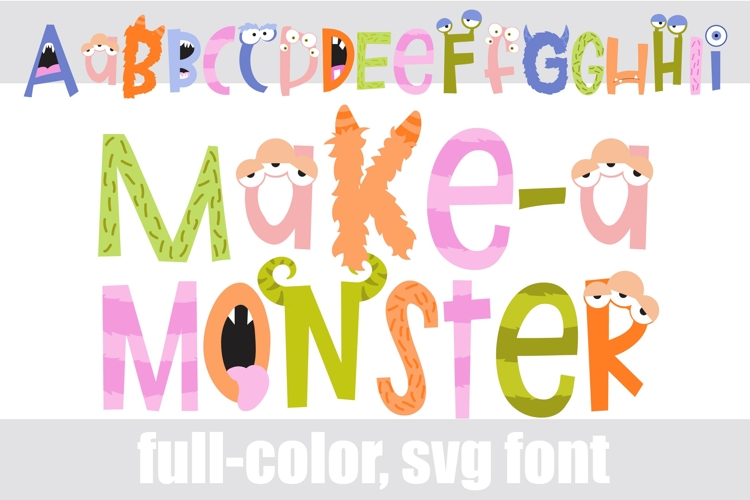
Make-a-monster Color Font
This full-color monster font is in a fresh, spring color palette. There is an alt case of additional colors of each letter that you can access through your system's character map.